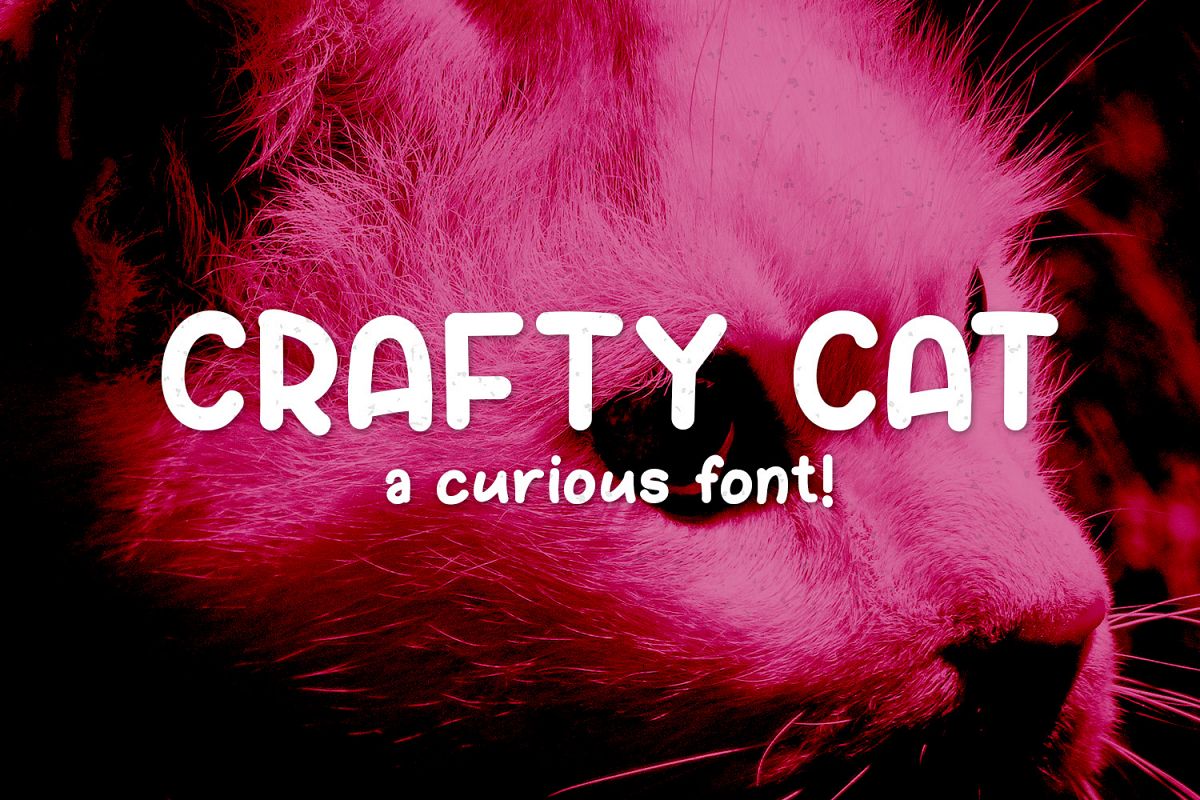
Crafty Cat. A fun and curious font, made for playful designs!
Features:- Multilingual
- Stylistic Alternates accessible via glyphs panel in compatible programs
- Lots of punctuation
- over 700 glyphs